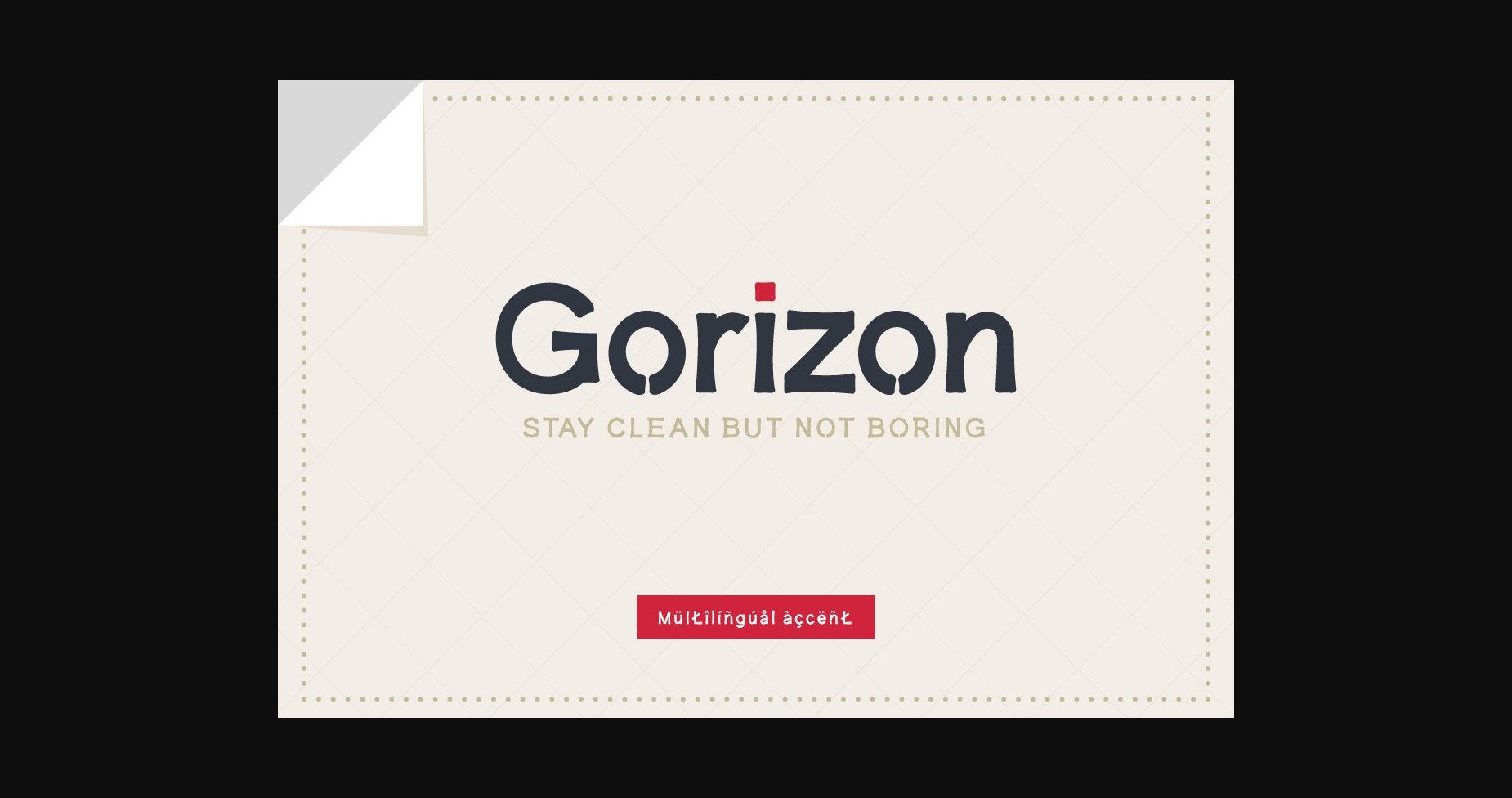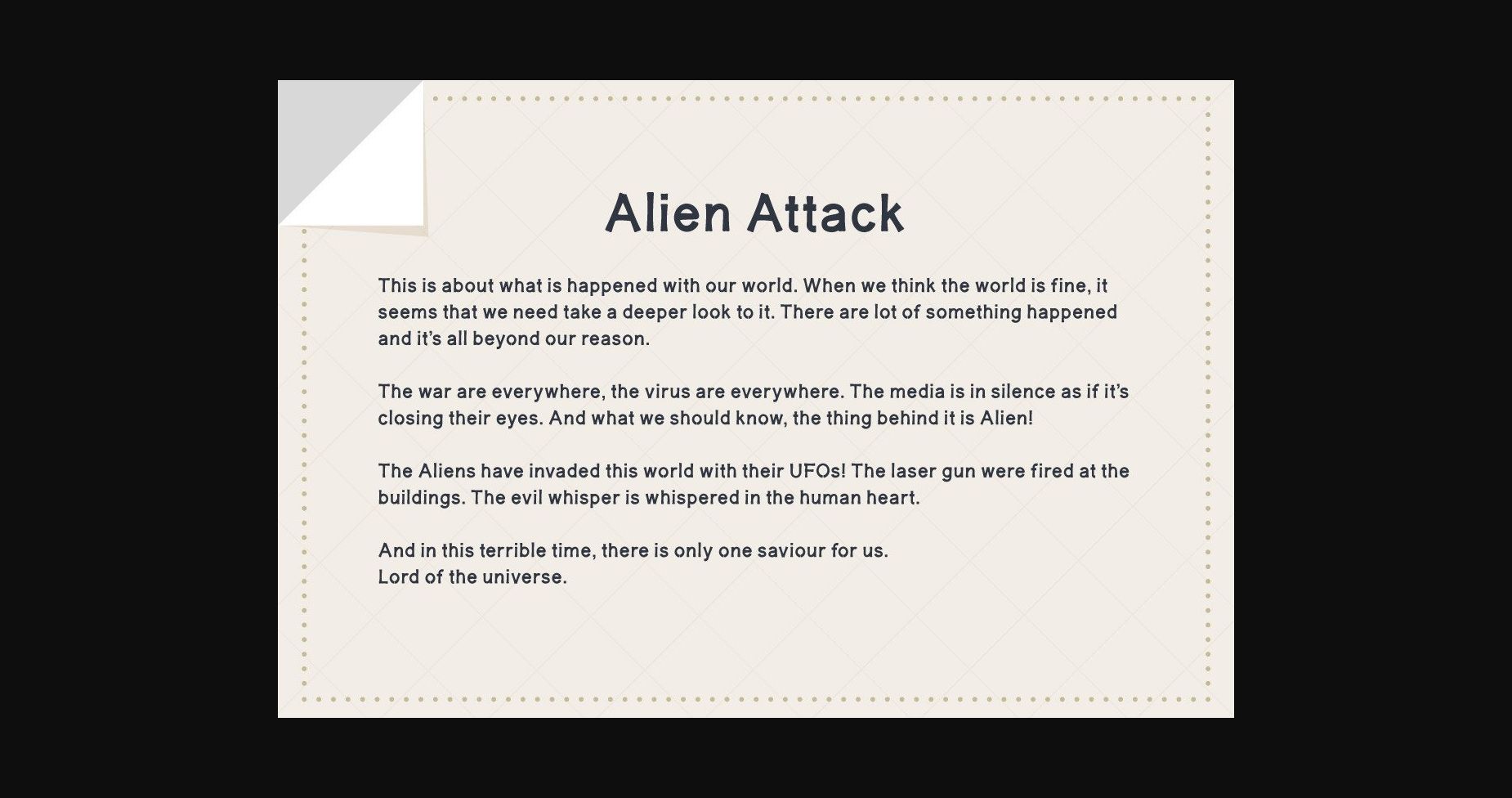
About Gorizon Font
Gorizon is a clean and fresh sans serif font. This typeface will enhance your craft with little effort, making your product stand out from the competition.